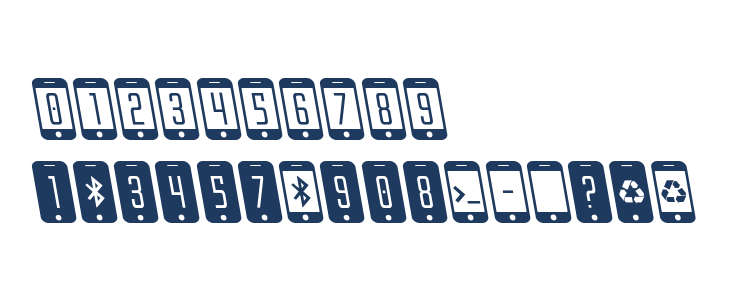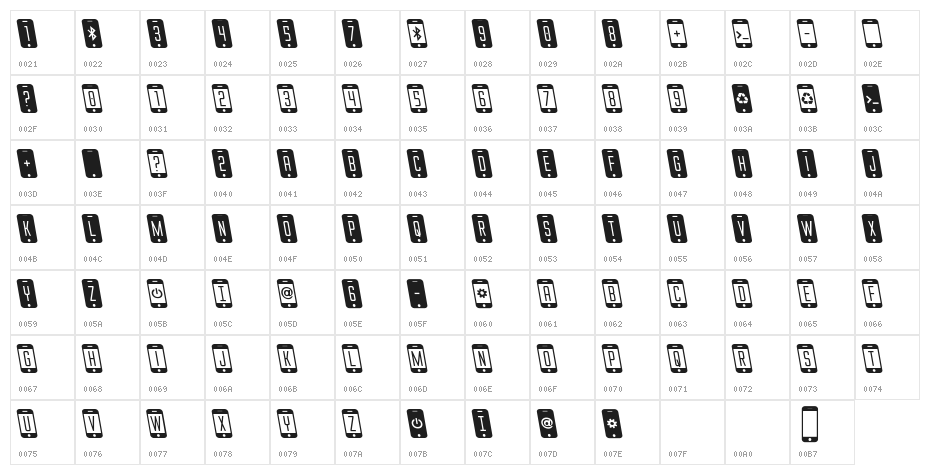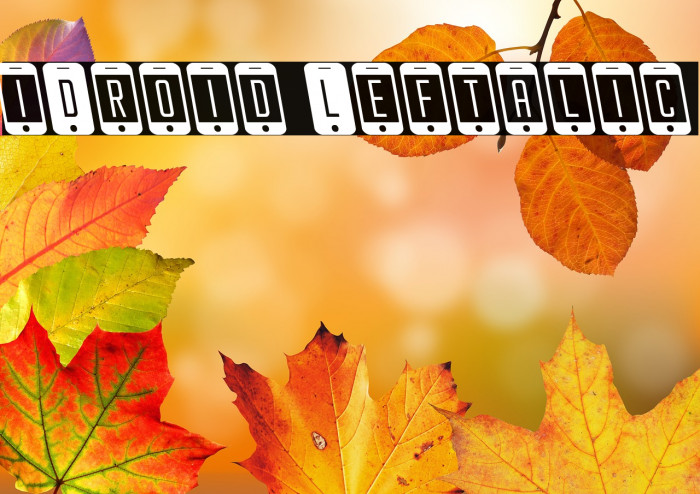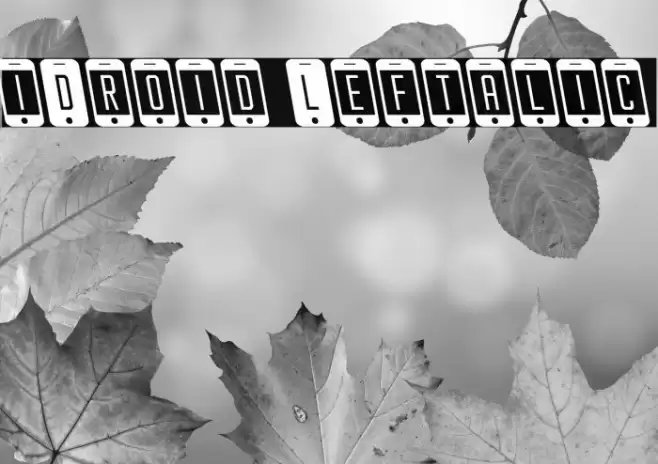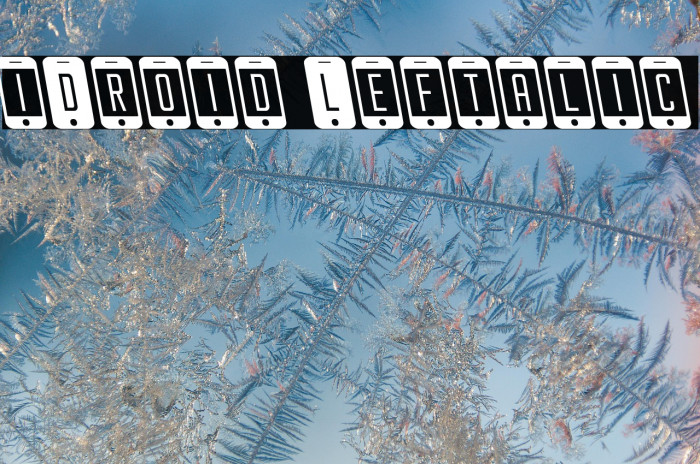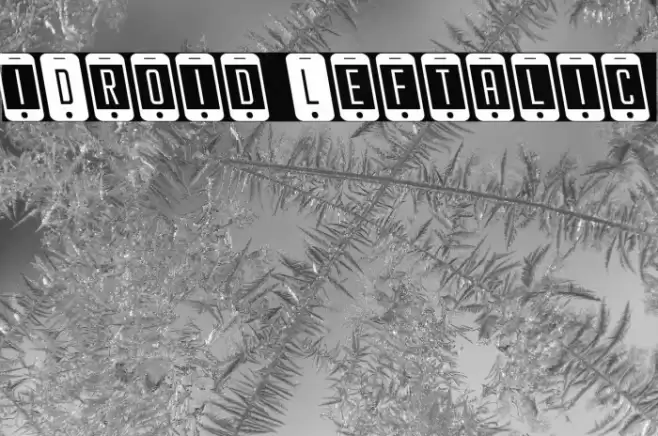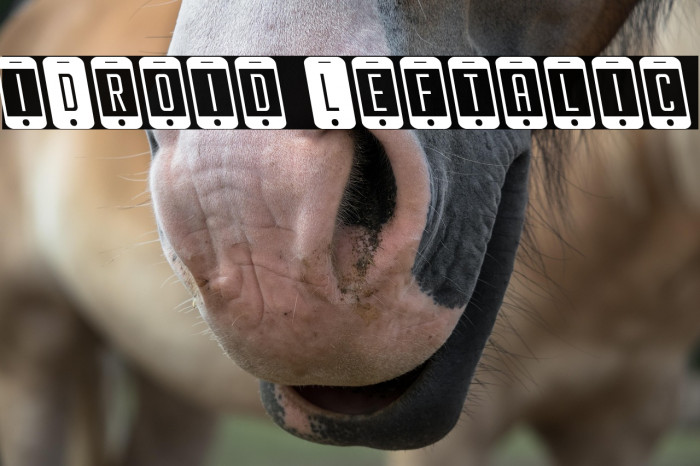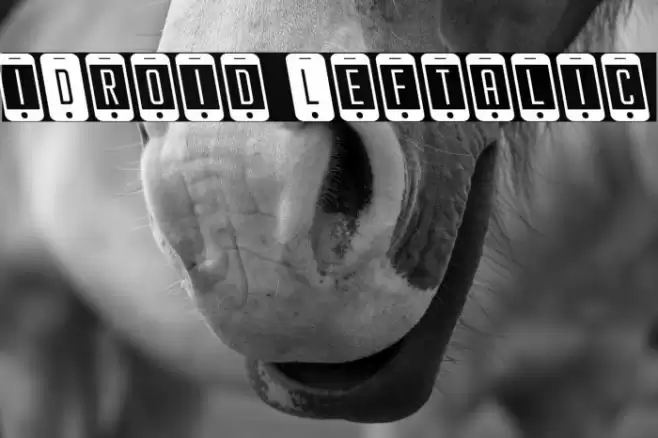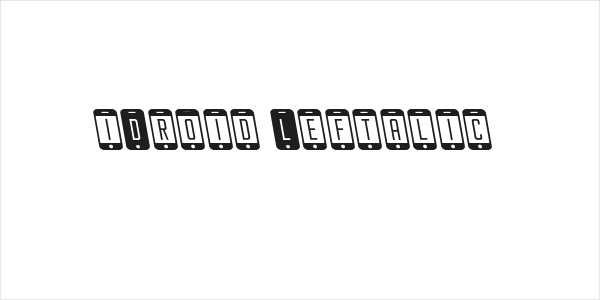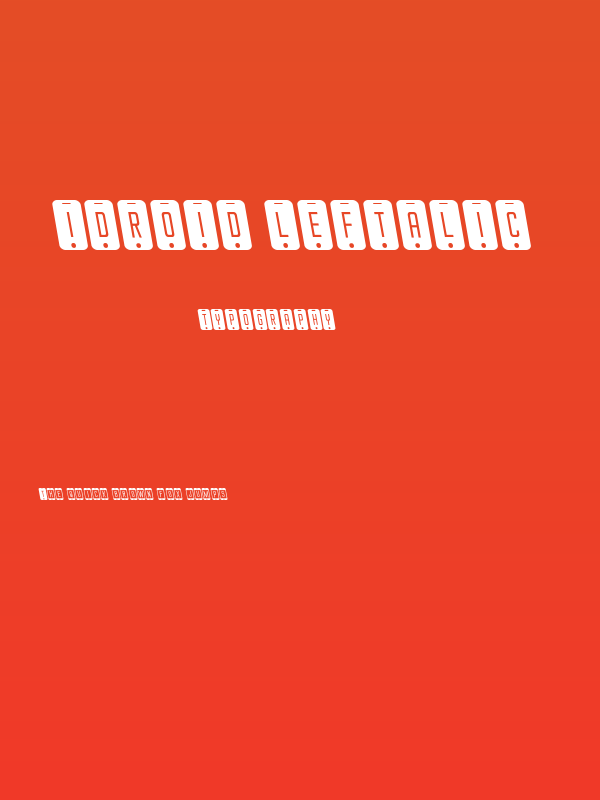
iDroid Leftalic Font
iDroid Leftalic Description
This font features a unique and modern design where each character is enclosed within a smartphone-like shape, complete with a small circle at the bottom, resembling a home button. The characters themselves are bold and sans-serif, providing a strong and clear appearance. The style is consistent across uppercase, lowercase, numbers, and special characters, maintaining the smartphone motif throughout. This design choice gives the font a tech-savvy and futuristic feel, making it stand out in digital and technology-related contexts.
| Use Case | Logos, Headlines, Digital Media |
| Proposed Projects | Ideal for technology branding, app design, digital marketing materials, and futuristic-themed projects. |